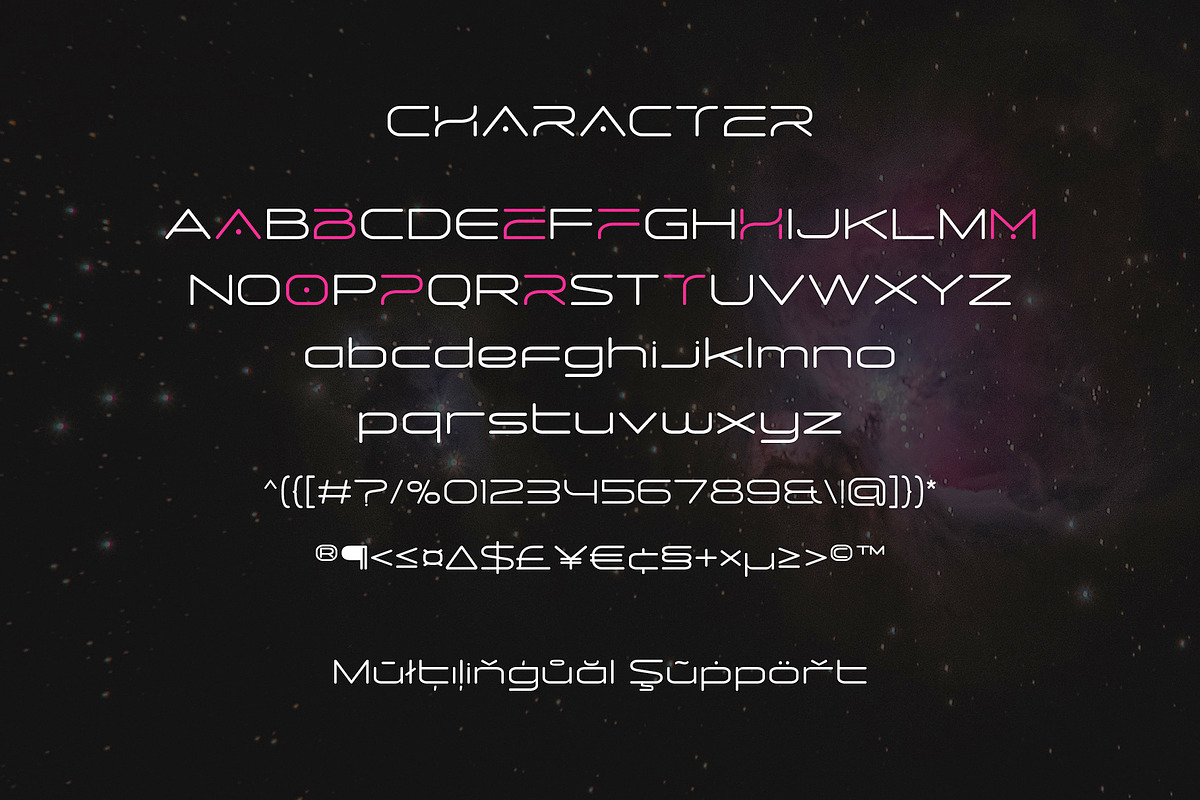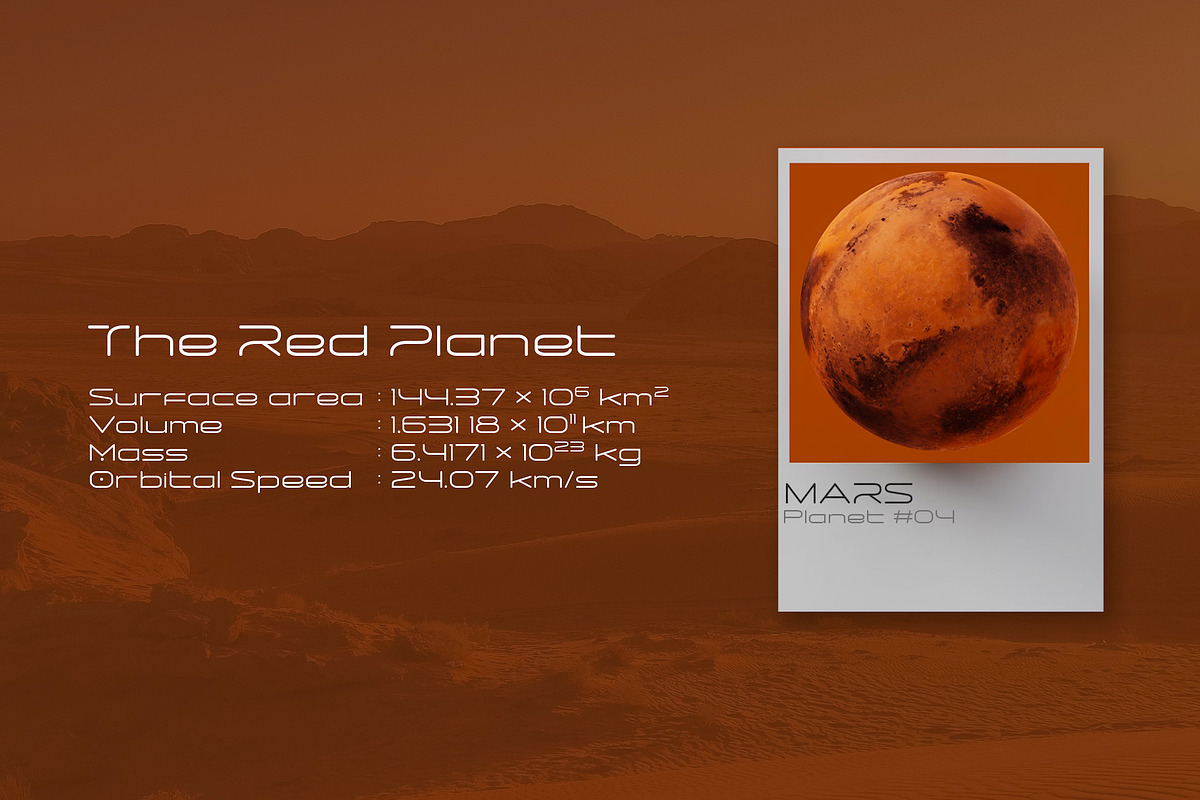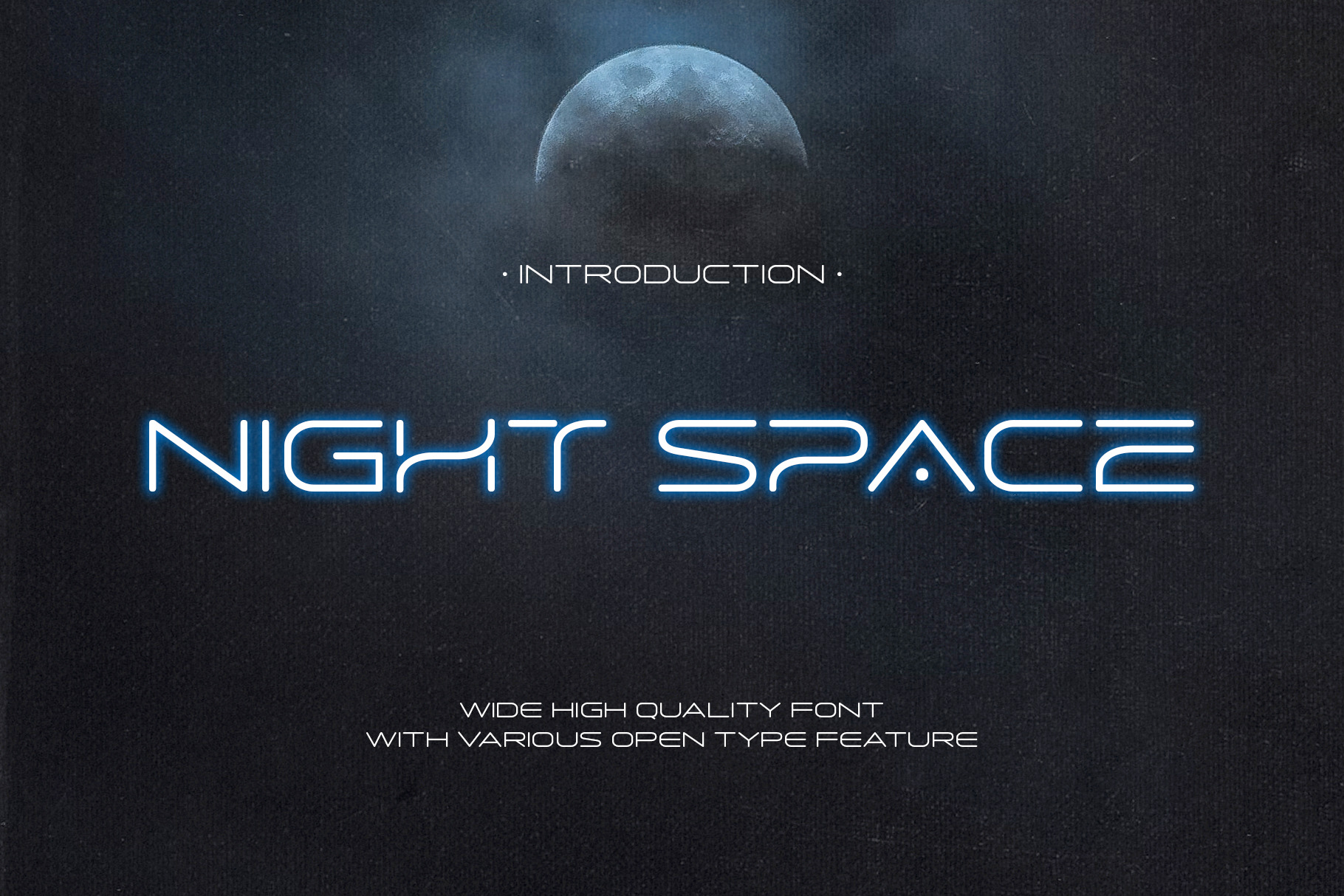
Night Space Aerospace Font
Introducing Night Space
A captivating typeface inspired by the vastness and wonder of the cosmos. Designed specifically with a space theme in mind, NIght Space embodies the ethereal beauty of the universe and brings a touch of celestial elegance to your written creations. Every letter of Night Space is meticulously crafted to reflect the mysteries and grandeur of outer space. The glyphs of Night Space possess a unique interstellar quality.
- Completely with 10 alternate characters